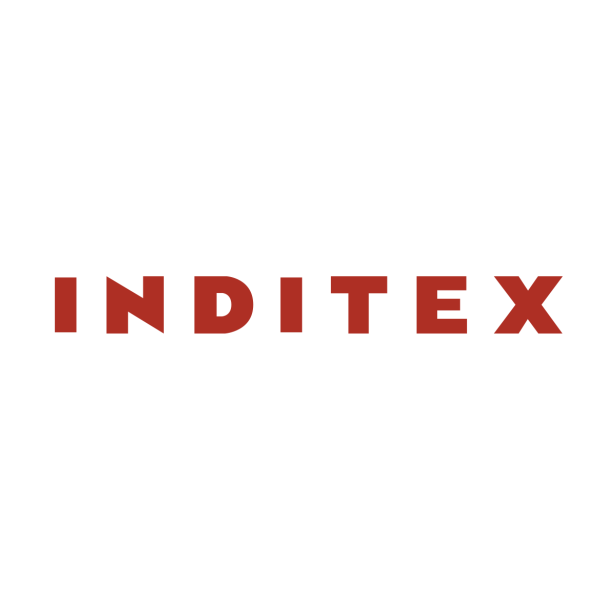
Inditex Font
ApparelInditex is a multinational fashion group based in Galicia, Spain. It was founded in 1975 by Amancio Ortega and Rosalía Mera. The company operates several retail chains, including Zara, Massimo Dutti, Bershka, and Pull & Bear.
Inditex's logo is most likely set in geometric san serifs Eagle Bold inspired by the 1930s Blue Eagle emblem of the National Recovery Association. You can view more details about typeface here.